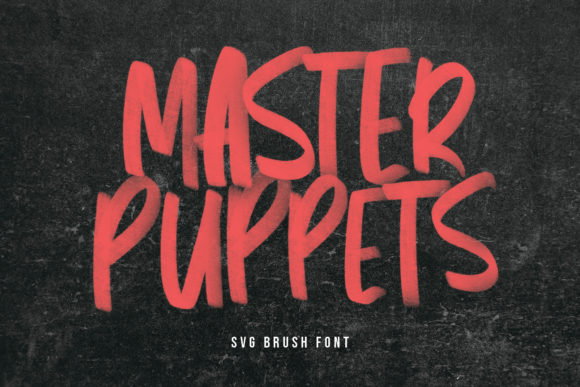
**Master Puppets: The Ultimate Font for Sports Lovers**
Calling all sports enthusiasts! Master Puppets is the font you've been waiting for. With its bold and edgy strokes, this display font will make your sports-themed designs pop like never before.
Crafted by the talented Maulana Creative, Master Puppets captures the essence of sports through its dynamic and energetic style. Its unique brush pen texture adds a touch of authenticity, making it perfect for creating logos, posters, and other sports-inspired designs.
But don't let its sporty character fool you – Master Puppets is incredibly versatile. Whether you're designing a website, social media graphics, or even a book cover, this font will add a touch of flair and excitement to your projects.
Imagine the impact it will have on your sports memorabilia, jerseys, and even fantasy football team names. Every stroke of Master Puppets will ignite a passion for the game and leave a lasting impression on your audience.